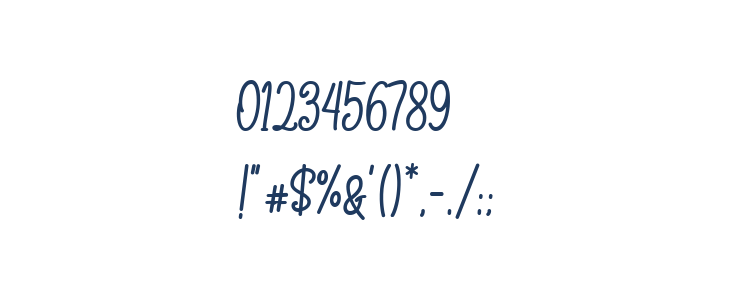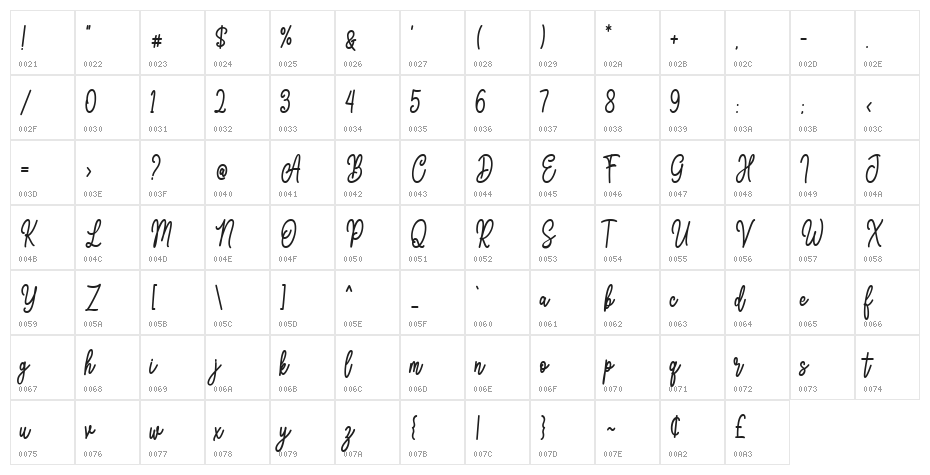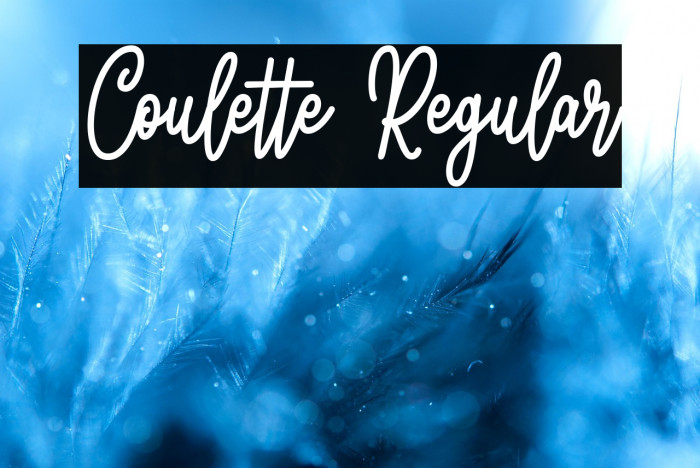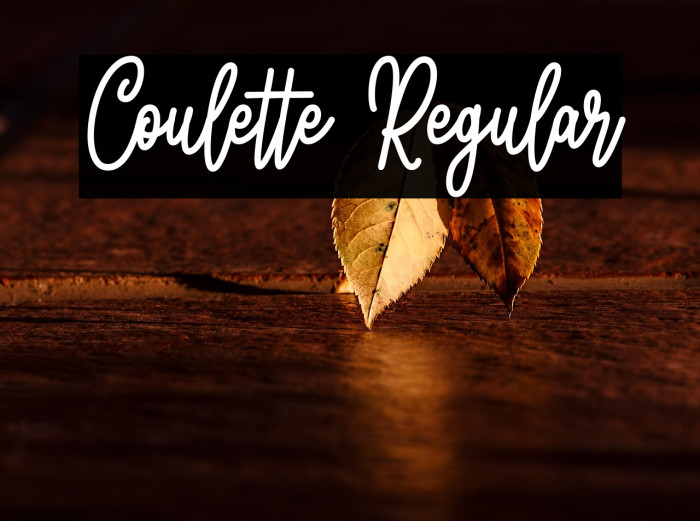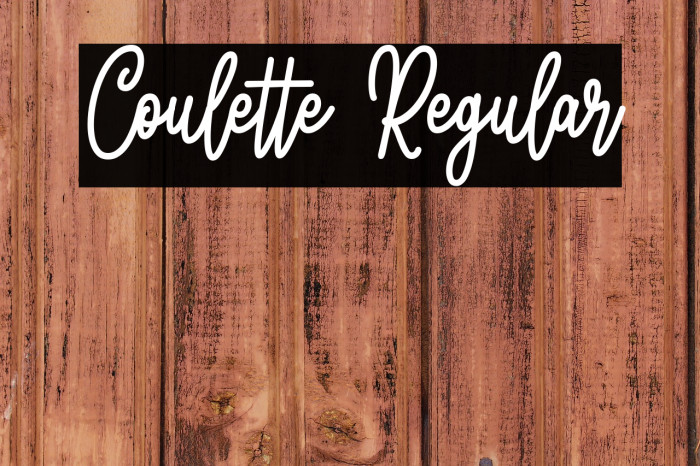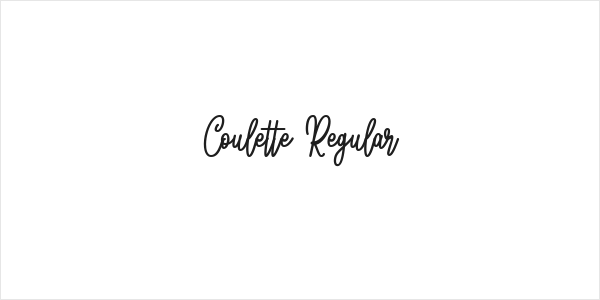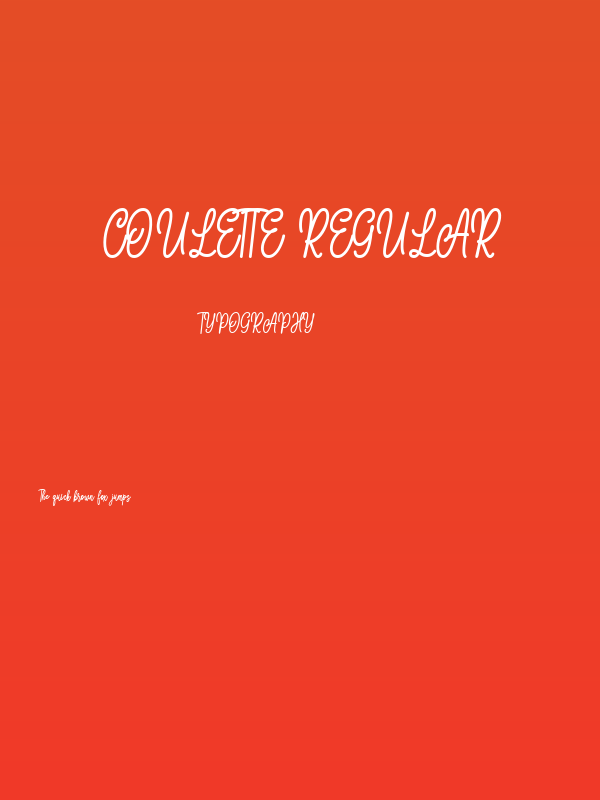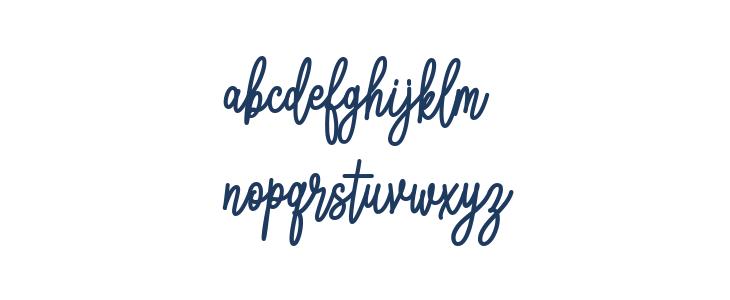
Coulette Regular Font
Coulette Regular Description
This font features a flowing, cursive style that exudes elegance and sophistication. The letters are interconnected, giving it a seamless and fluid appearance. The strokes are smooth and consistent, with a slight slant that adds to its graceful look. The uppercase letters are bold and prominent, while the lowercase letters maintain a delicate balance, offering a harmonious blend. The numerals and special characters are crafted with the same attention to detail, ensuring uniformity across all elements. This font is ideal for projects that require a touch of class and refinement.
| Overall Style | Elegant |
| Use Case | Headlines, Invitations, Logos |
| Proposed Projects | Ideal for wedding invitations, elegant branding, personal signatures, and decorative headings. |